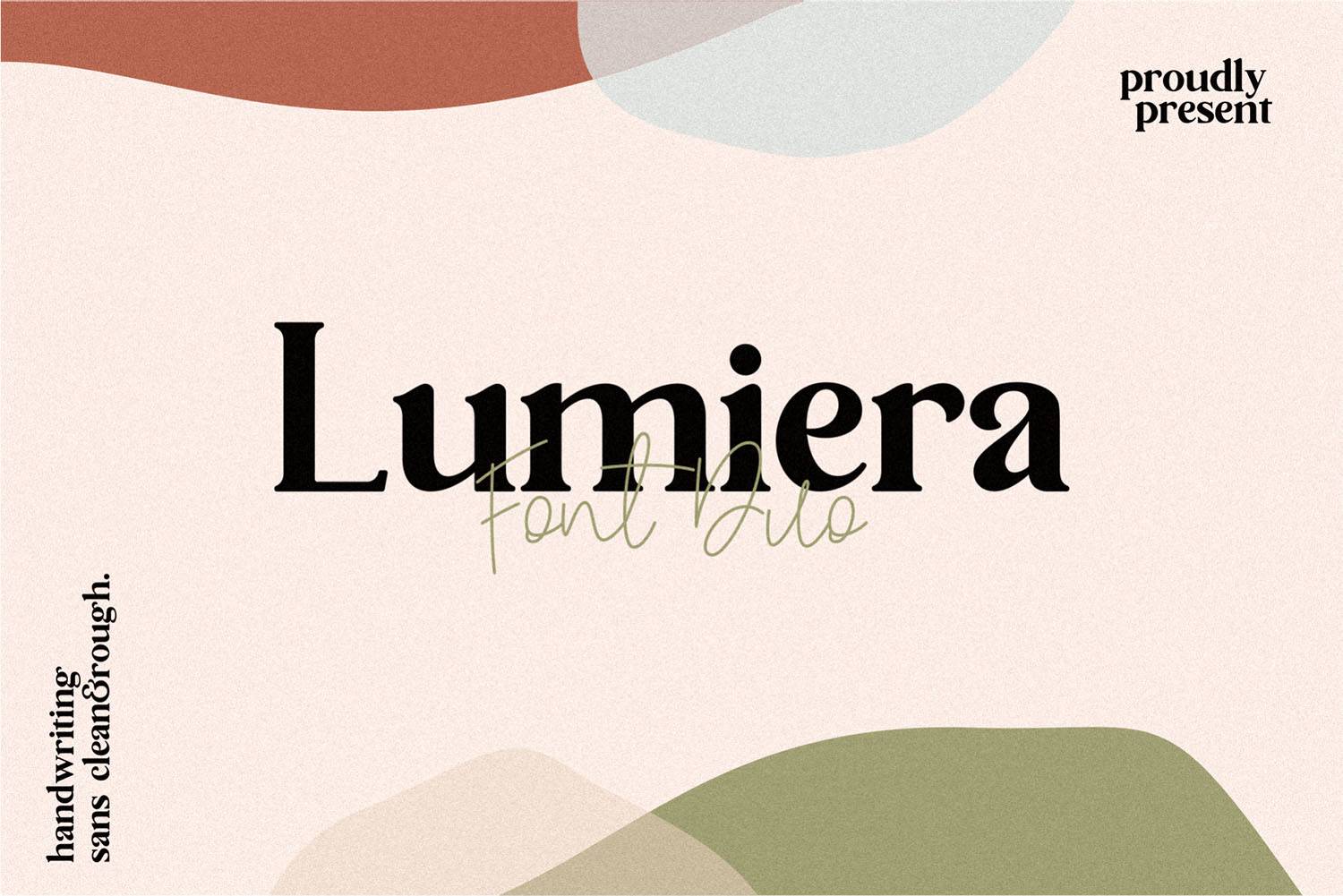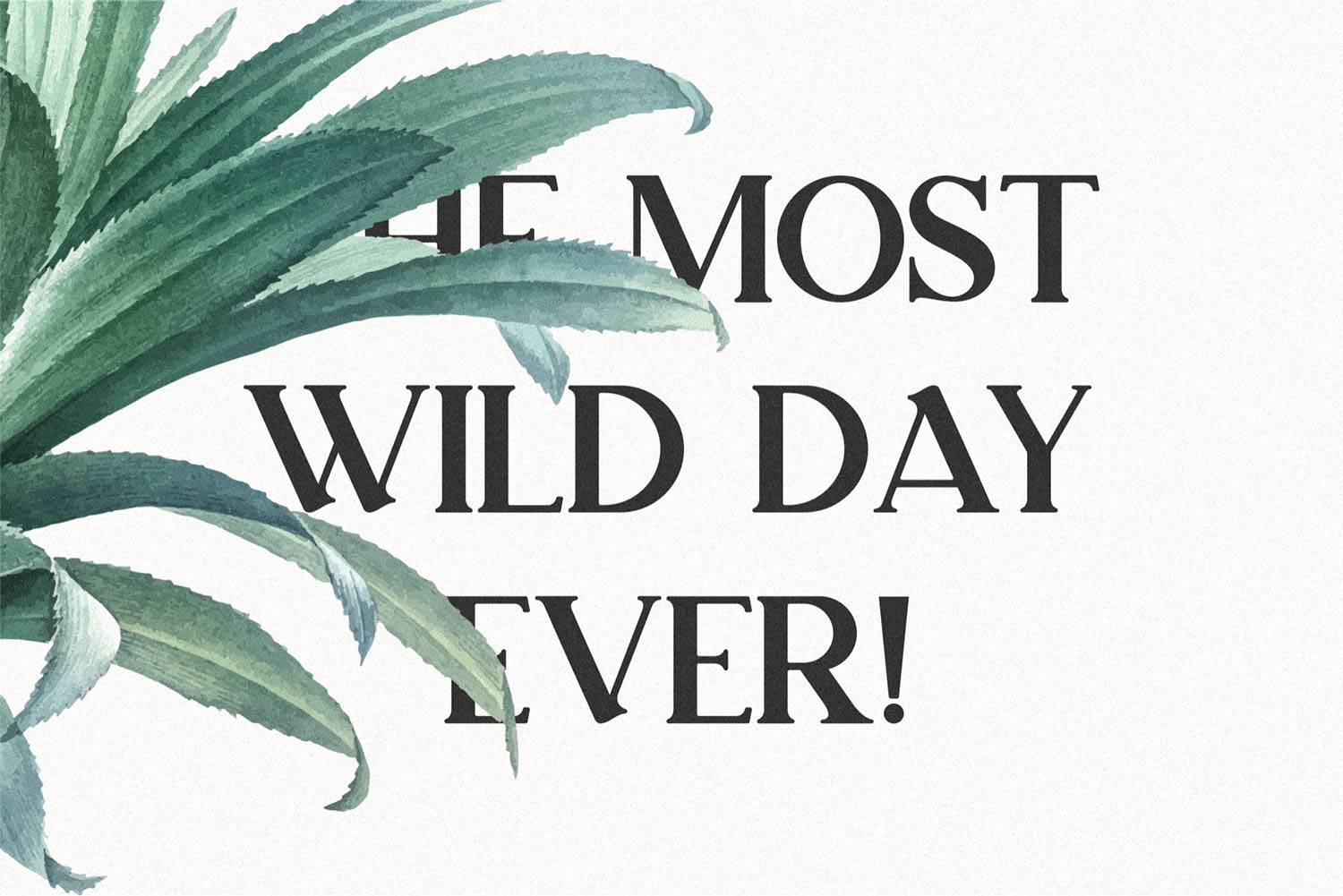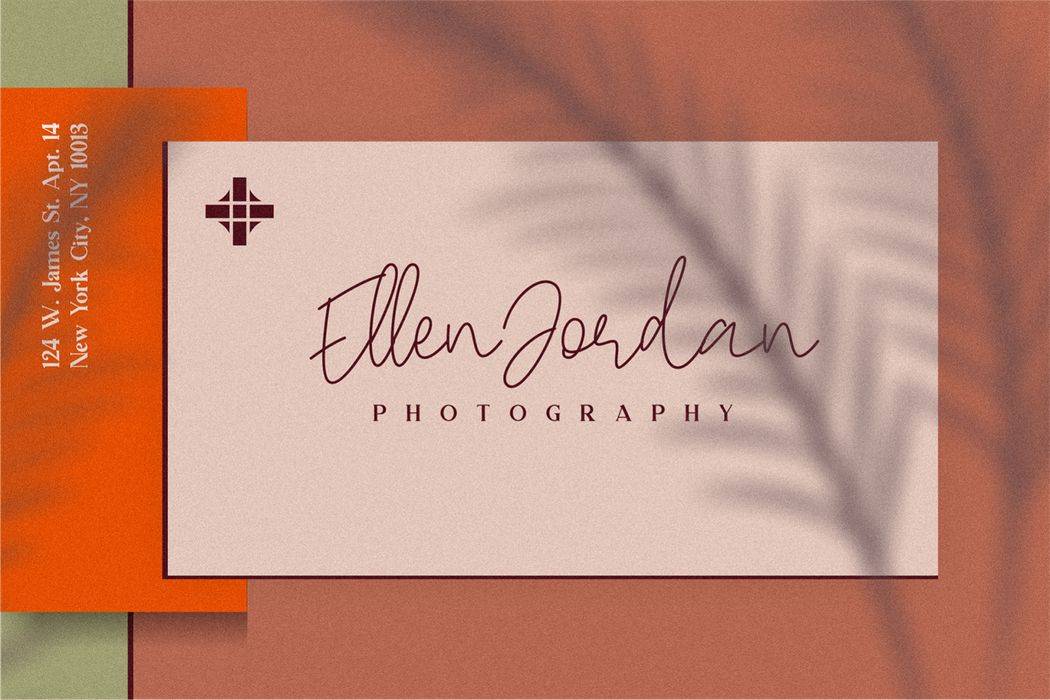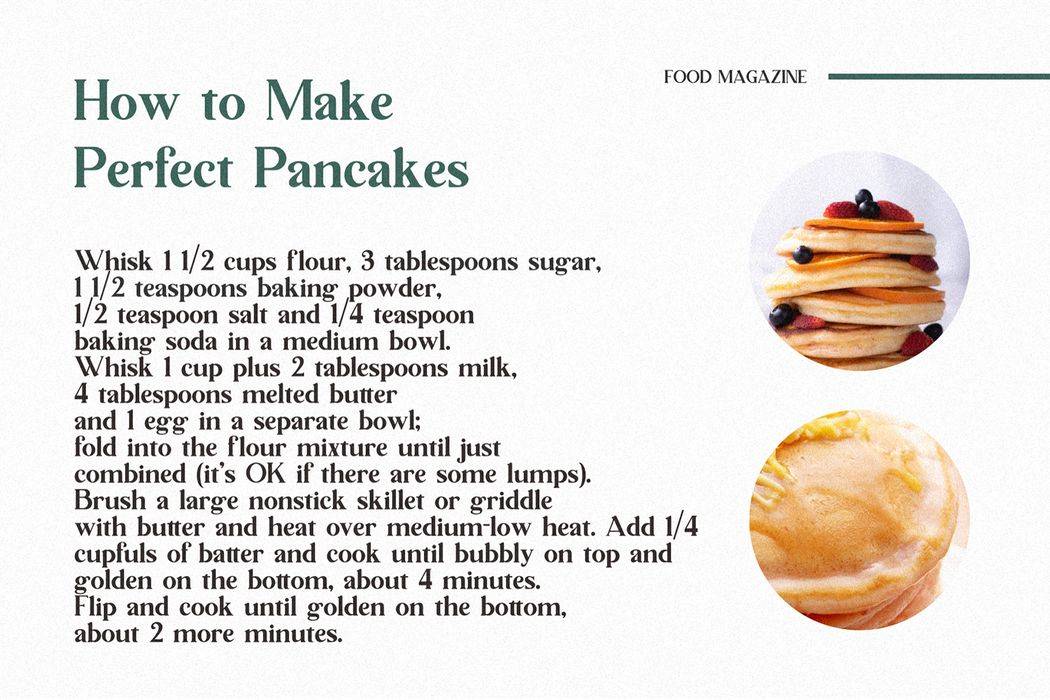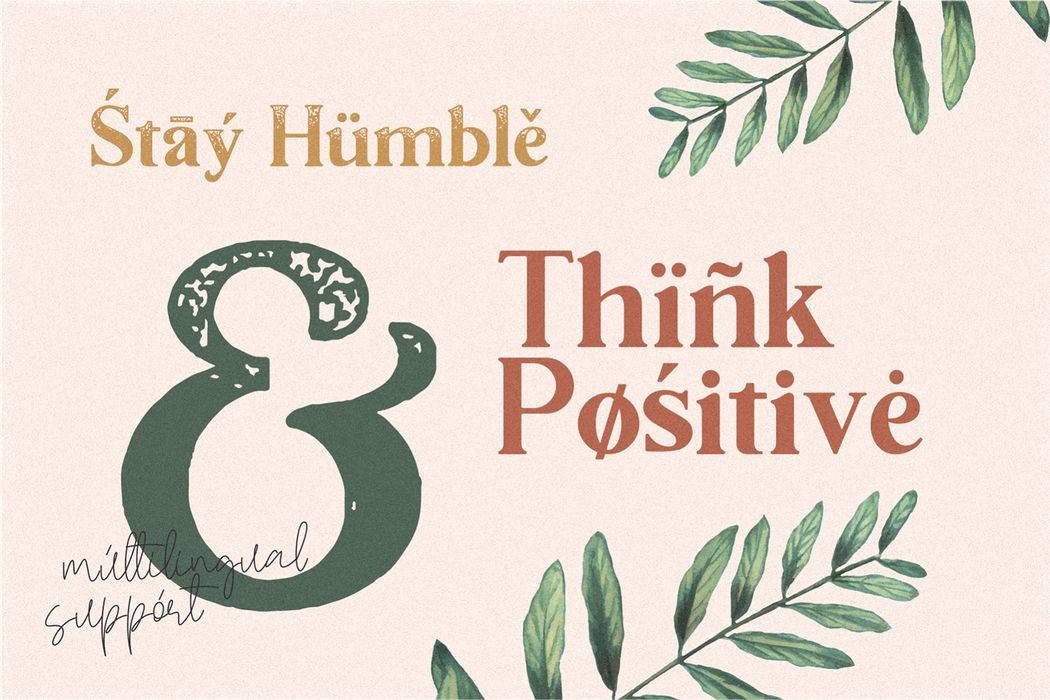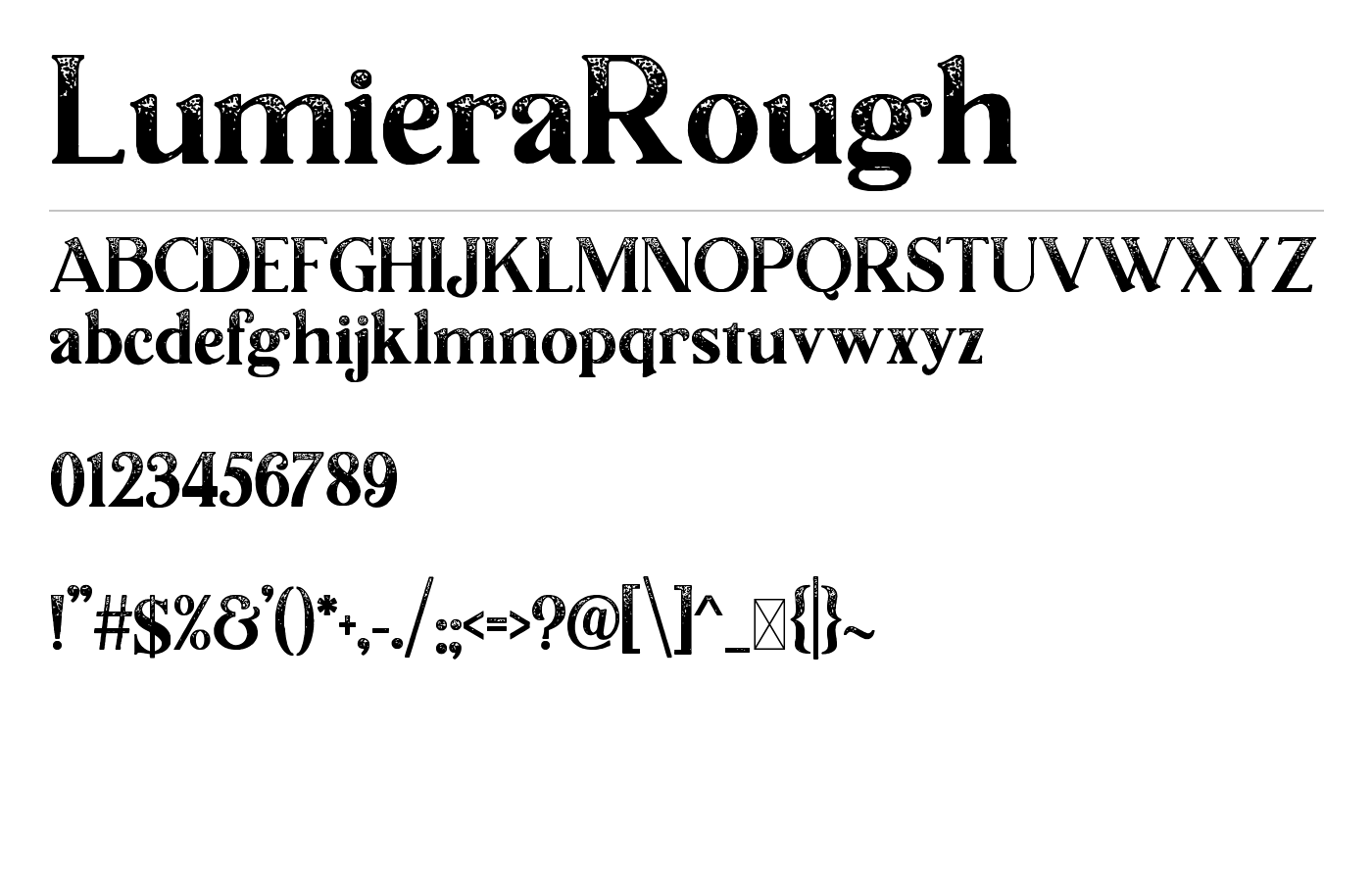
Lumiera Rough is a classic serif font with a distressed texture, combining traditional elegance with a vintage, worn-in personality. Its medium weight, balanced proportions, and high contrast strokes make it ideal for stylish headlines, logos, and editorial designs that seek a timeless yet rugged character. This font works well in branding and print projects where an authentic, handcrafted feel is desired.
Lumiera Font
About Lumiera Font
| Font family | Lumiera Font |
| Release date | 2019-08-21 |
| Designer | Holis Majid |